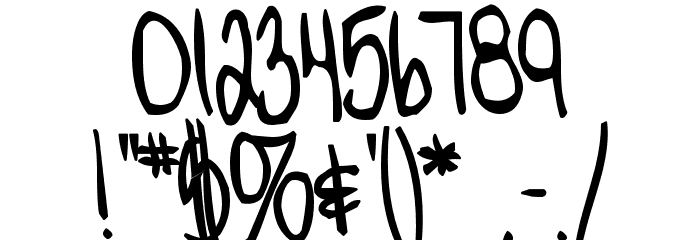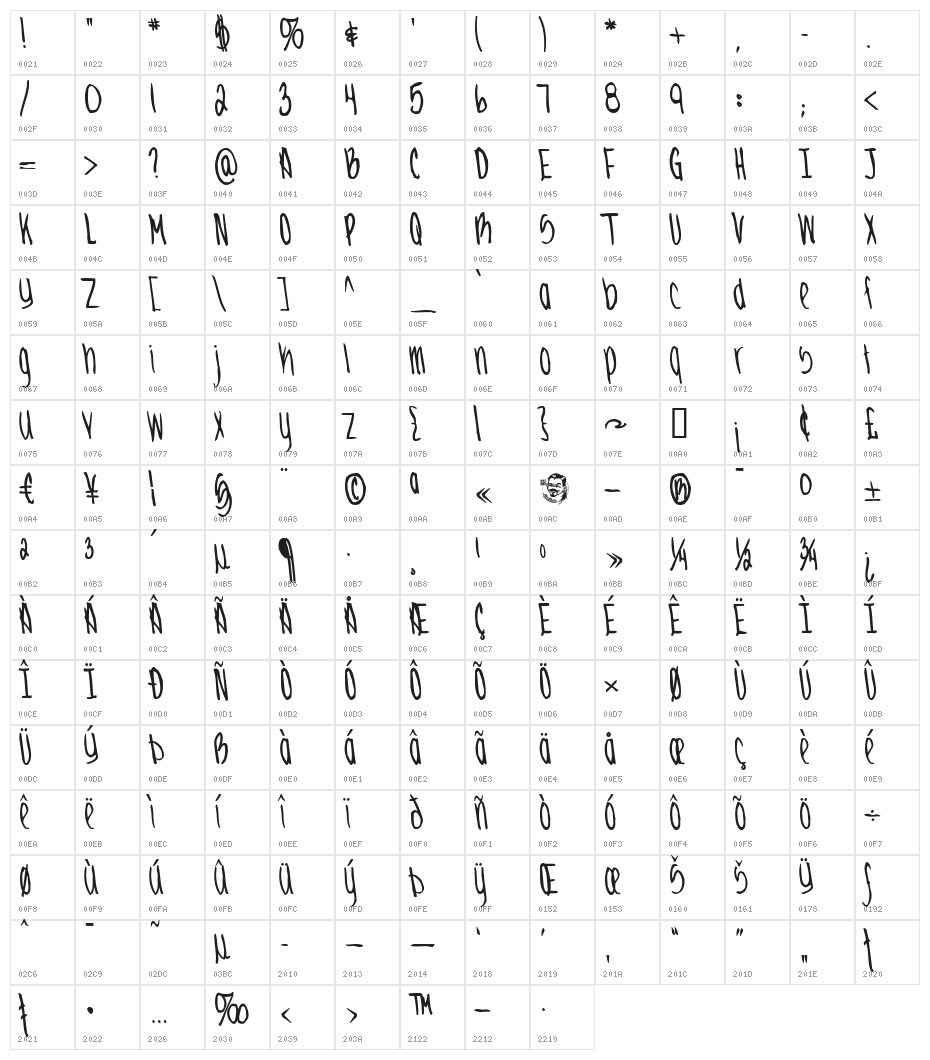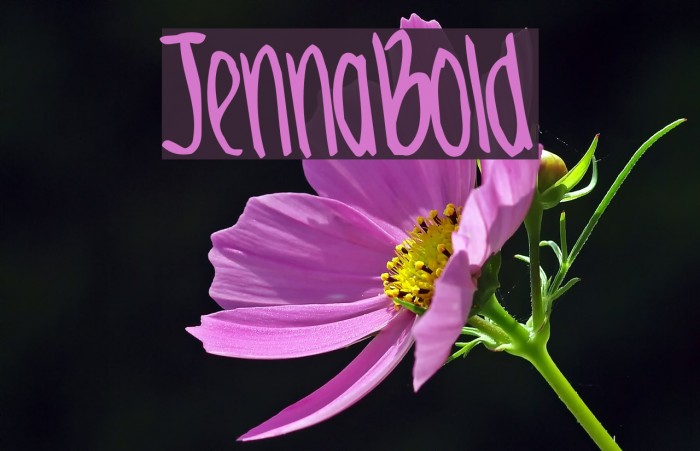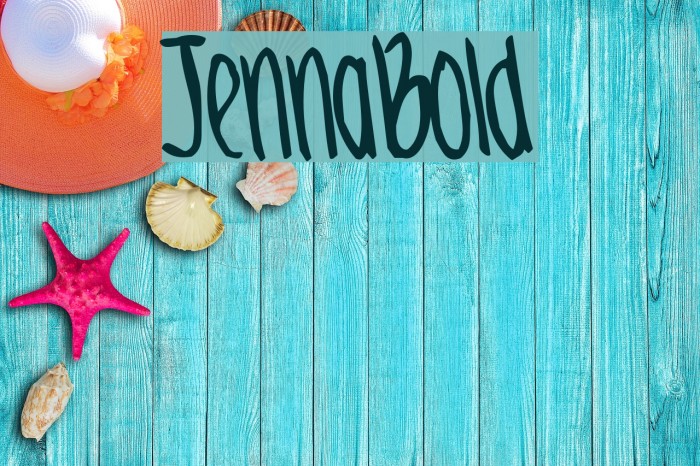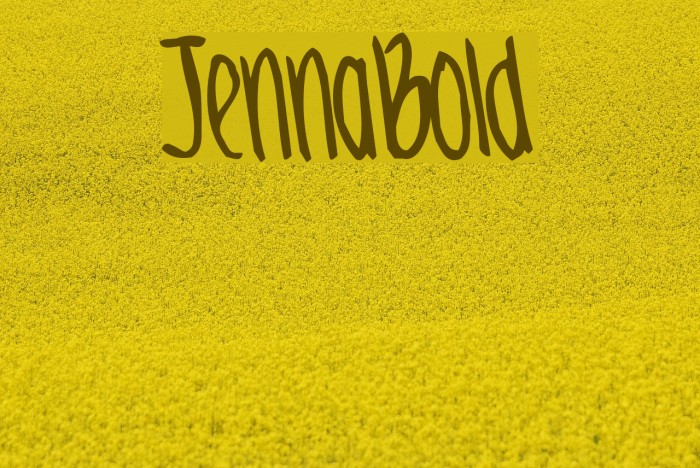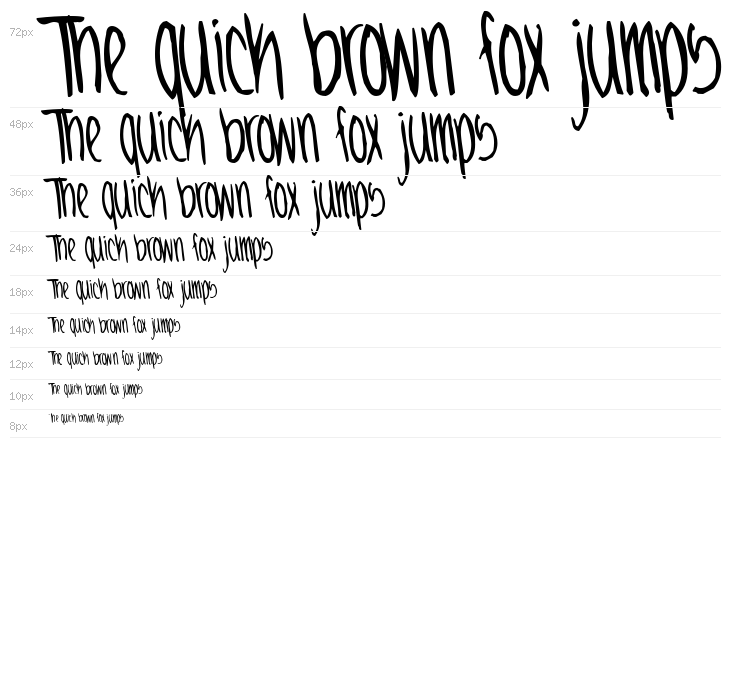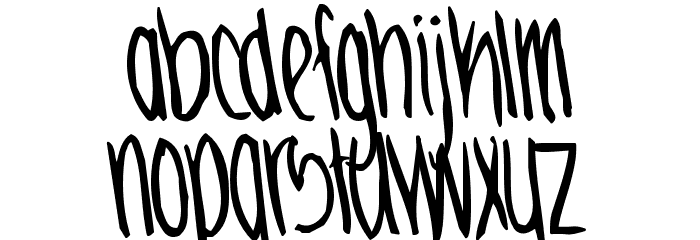
JennaBold Font
JennaBold Description
This font features a bold, handwritten style with a playful and casual appearance. The letters are tall and slightly condensed, giving it a unique and expressive character. The strokes are thick and consistent, contributing to a strong visual impact. The uppercase and lowercase letters maintain a cohesive look, with rounded edges and a slight slant, adding to its informal charm. The numbers and special characters are equally bold and match the overall aesthetic, making it suitable for creative and dynamic designs.